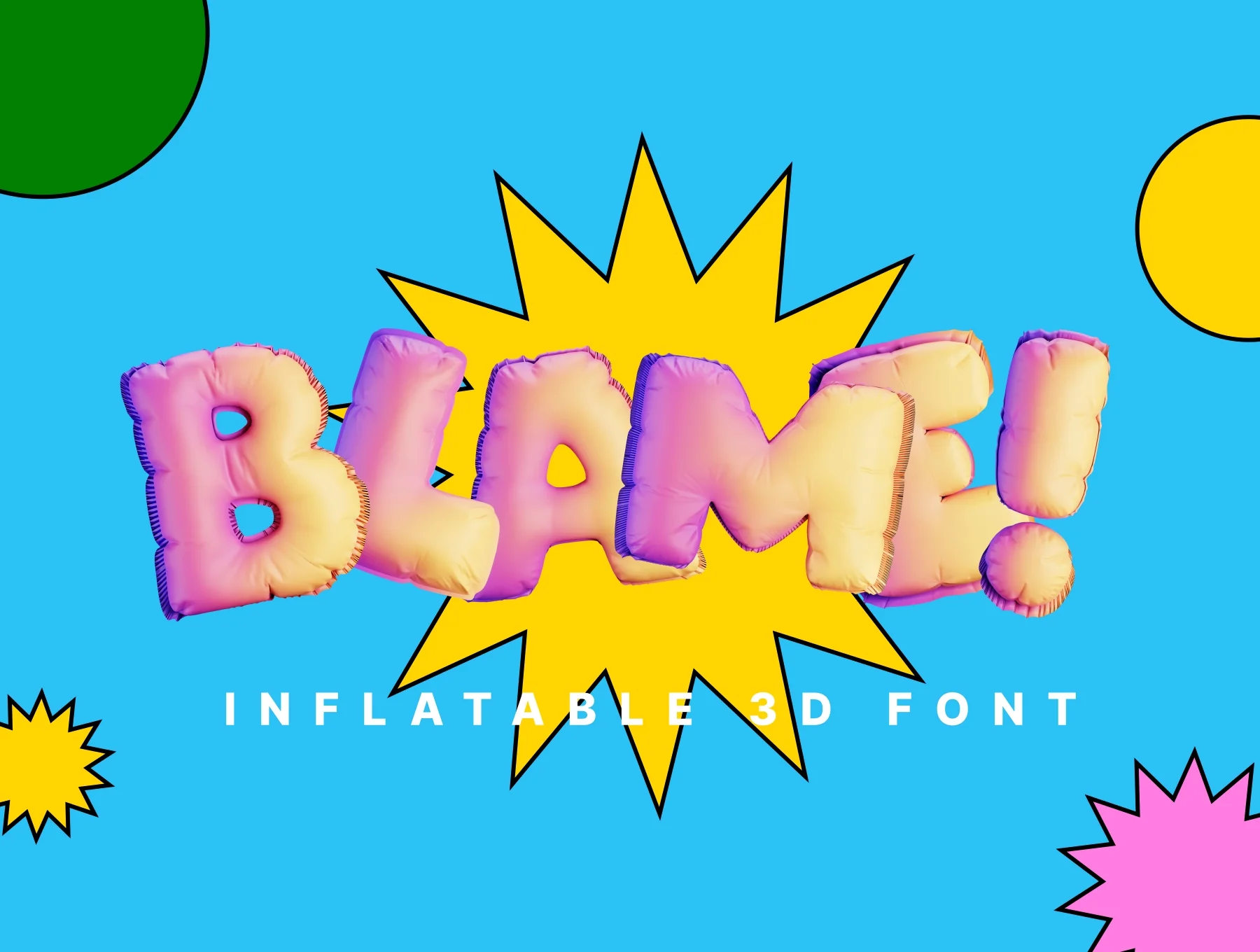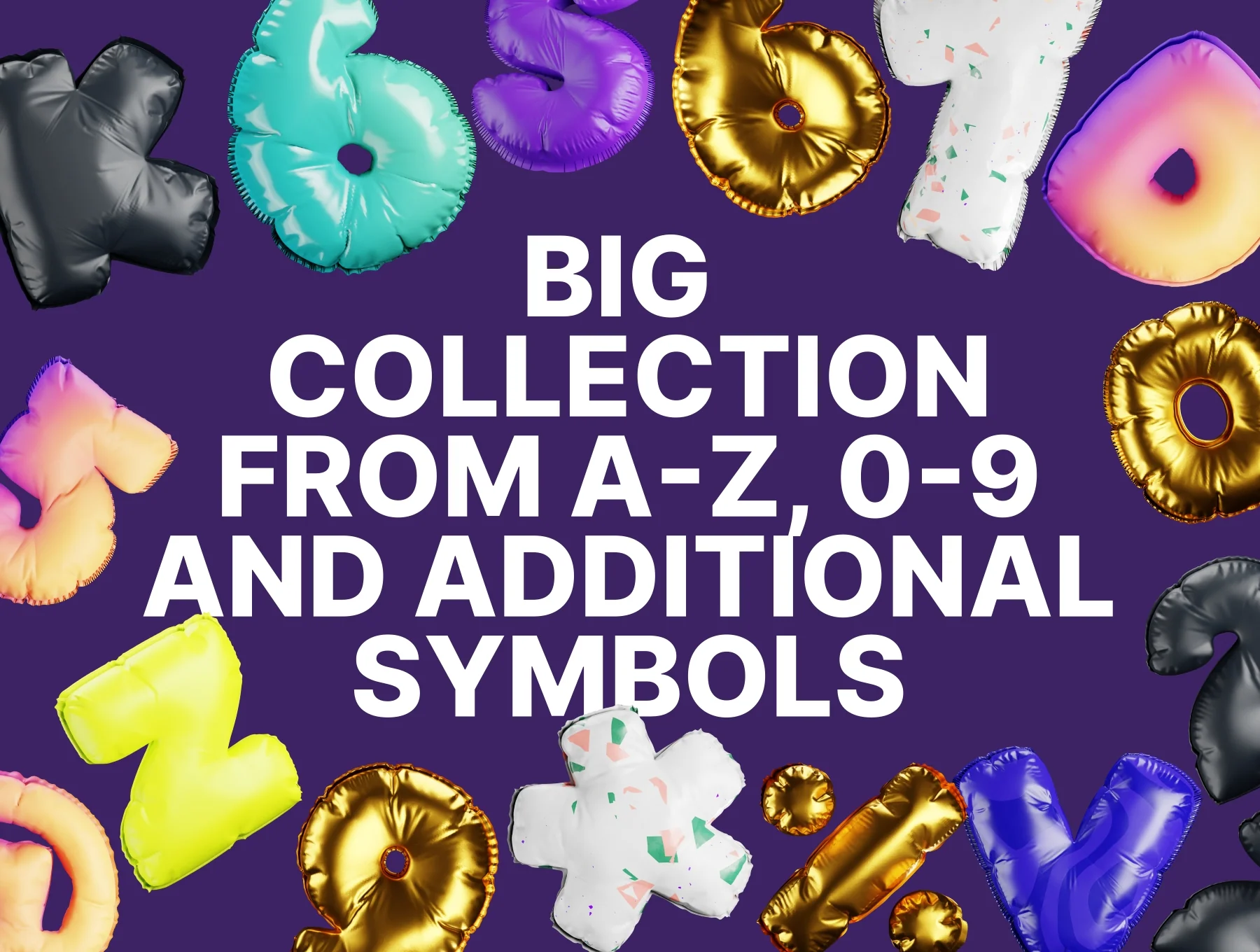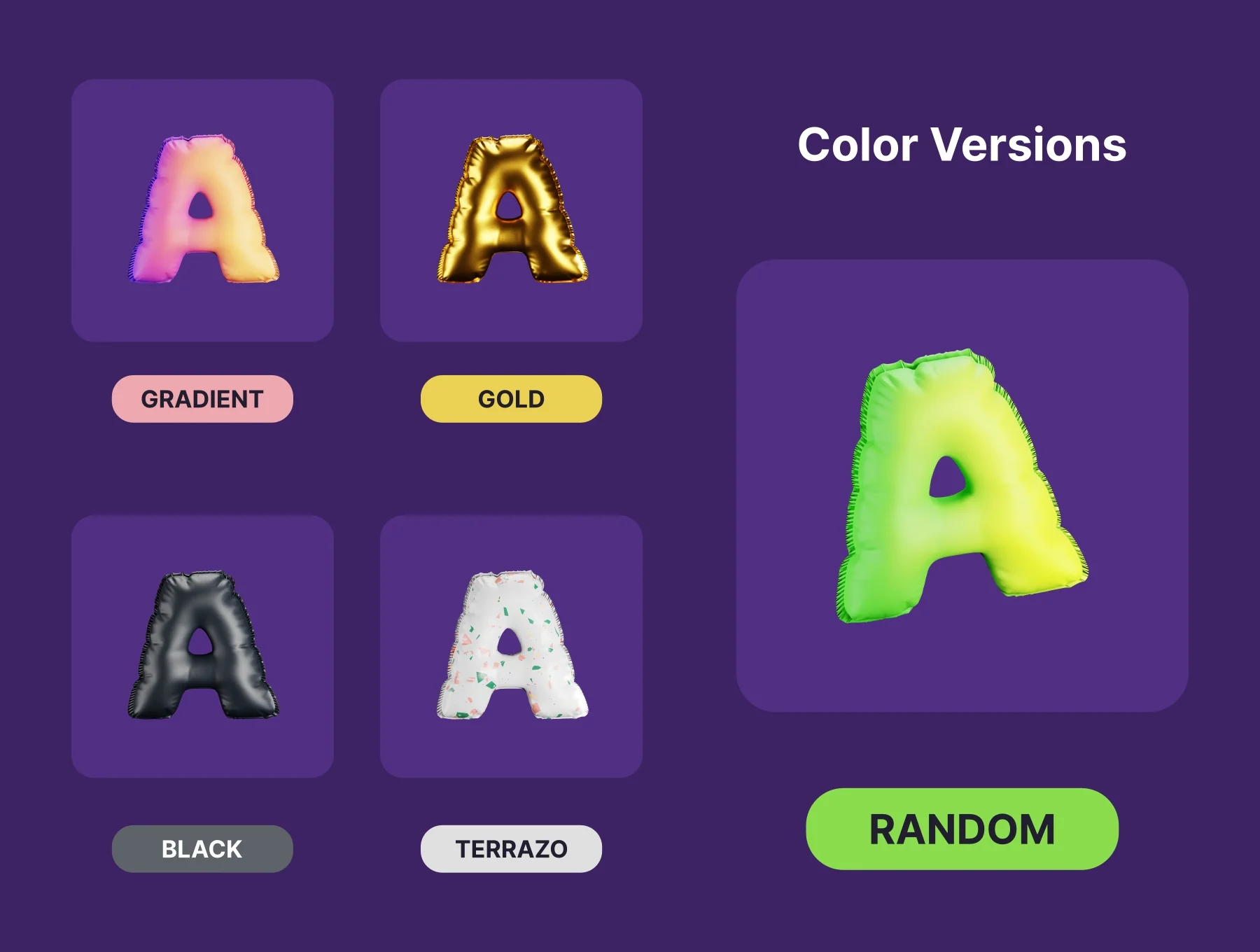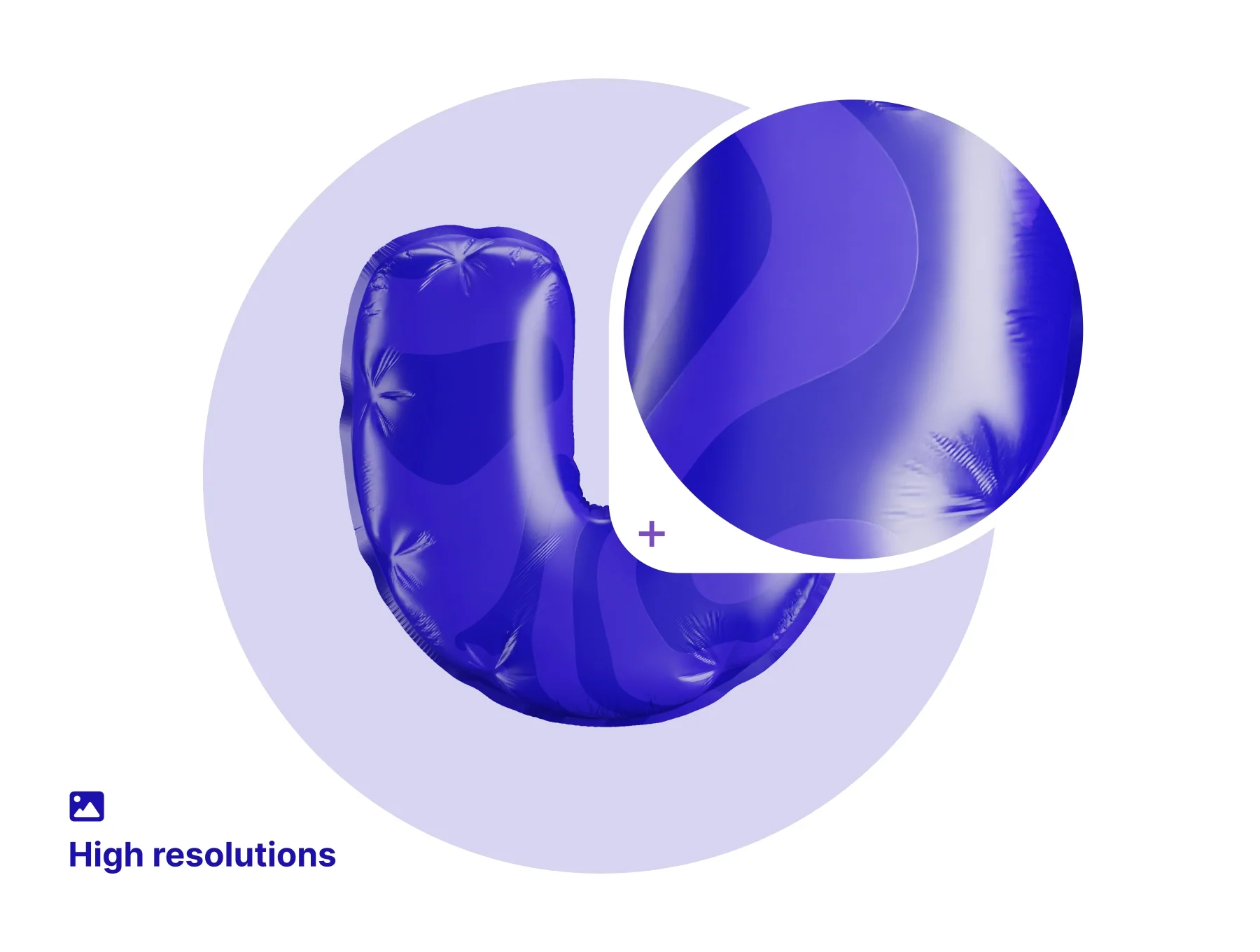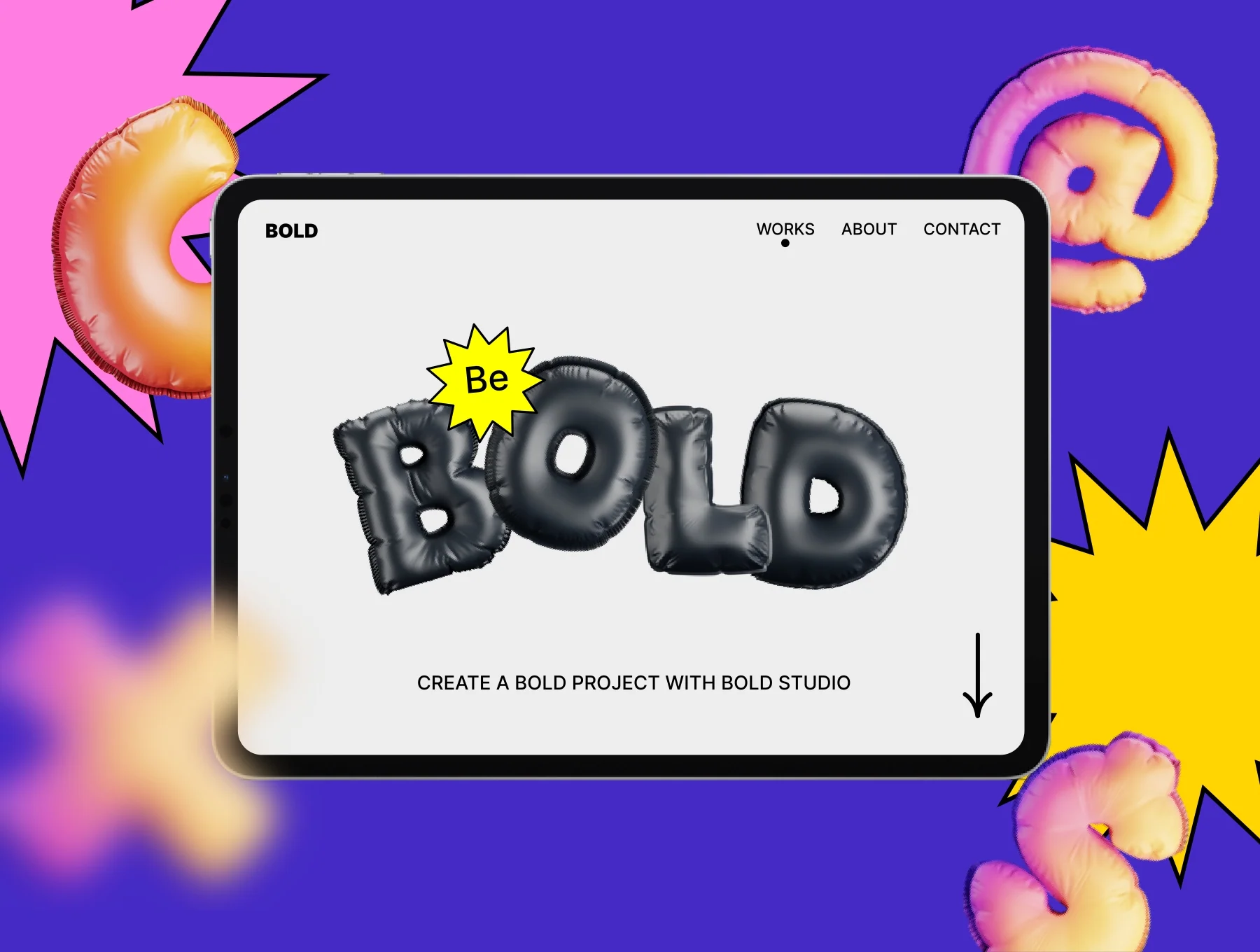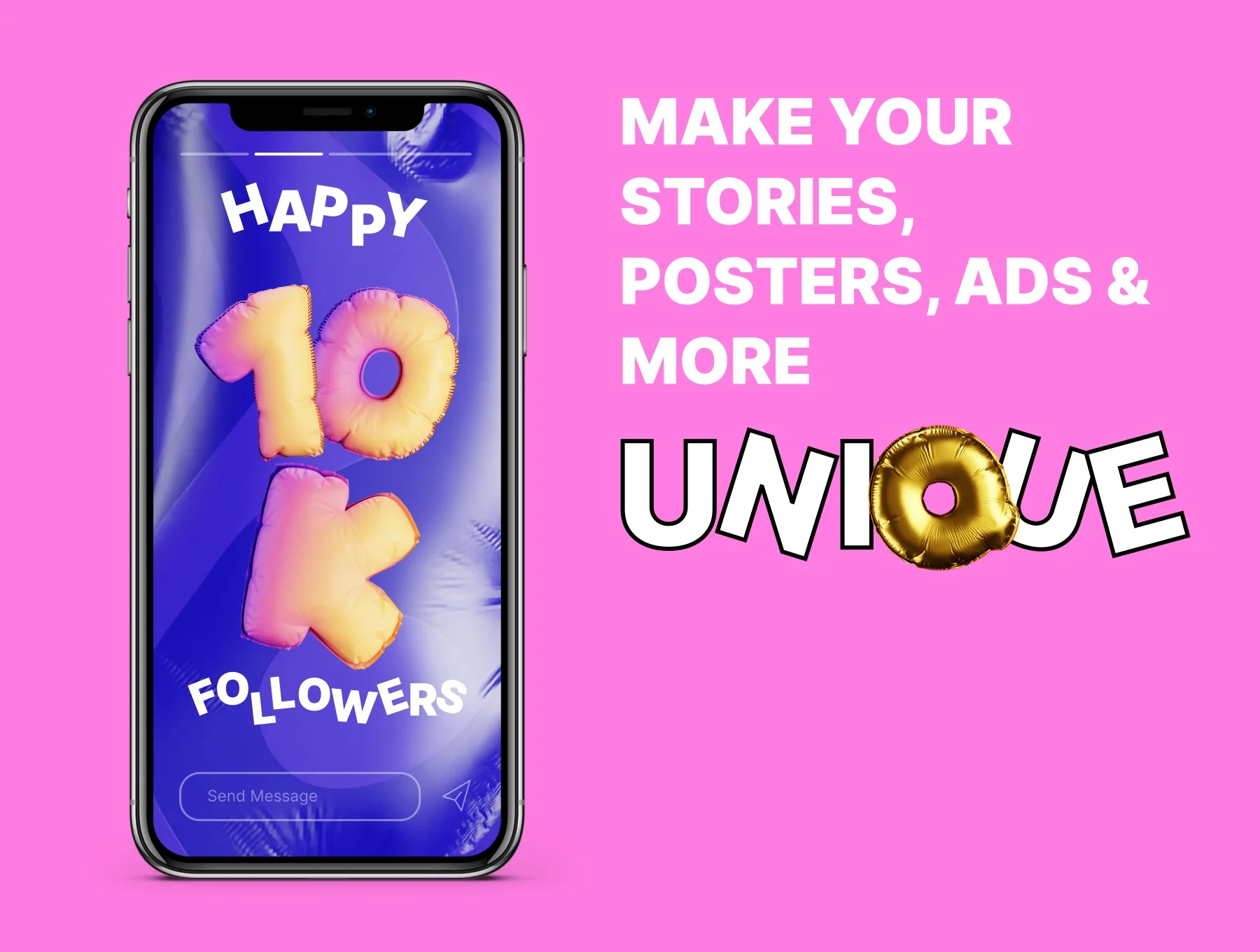
Blame! Inflatable 3D Font
Air-filled 3D lettering
Three-dimensional letters, numerals, and icons
Five palette options: Black, Gold, Gradient, Terazzo, and Random
Make your message stand out with eye-catching style. This inflatable 3D font set is crafted for designers, marketers, SMM creators, and anyone seeking distinctive visuals. Ideal for stories, social media campaigns, posts, and ads.